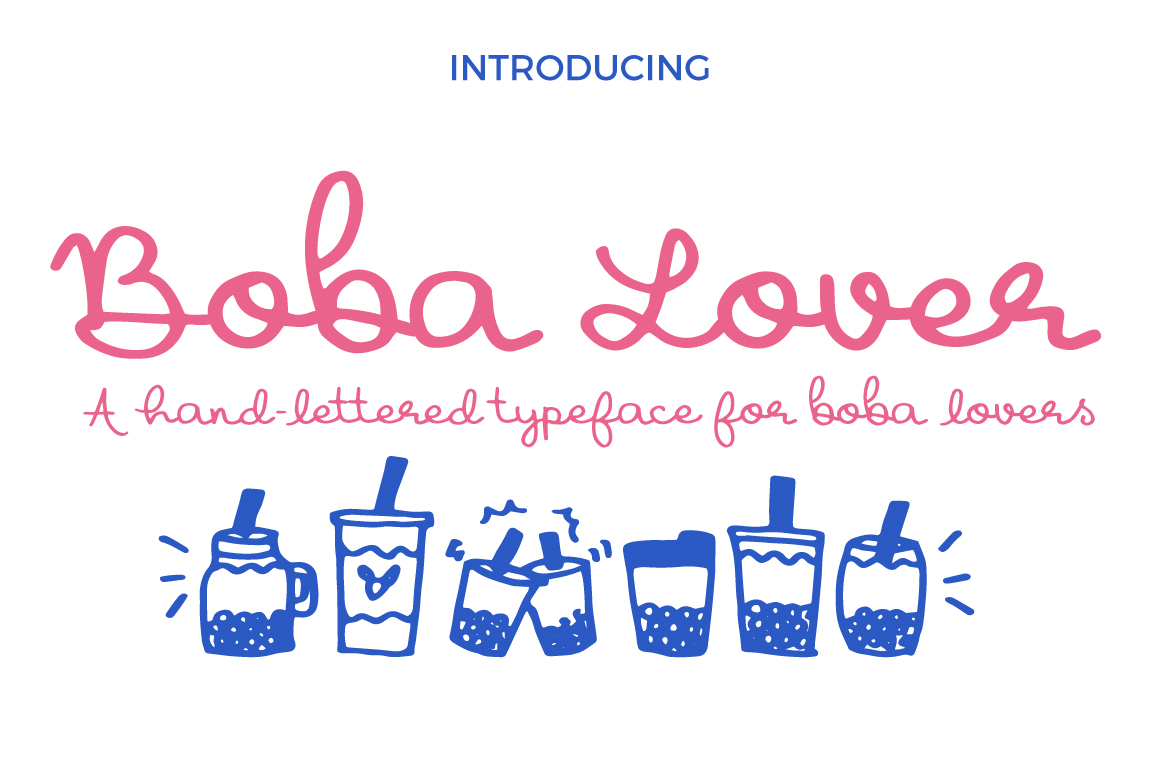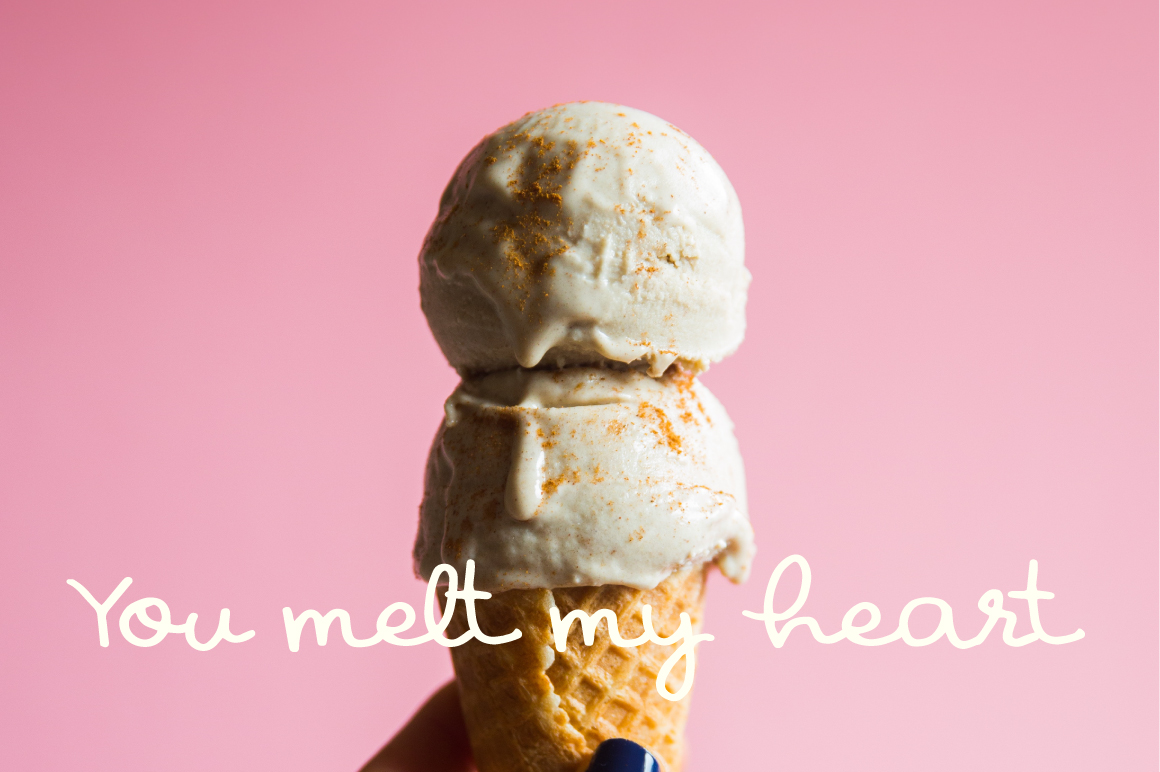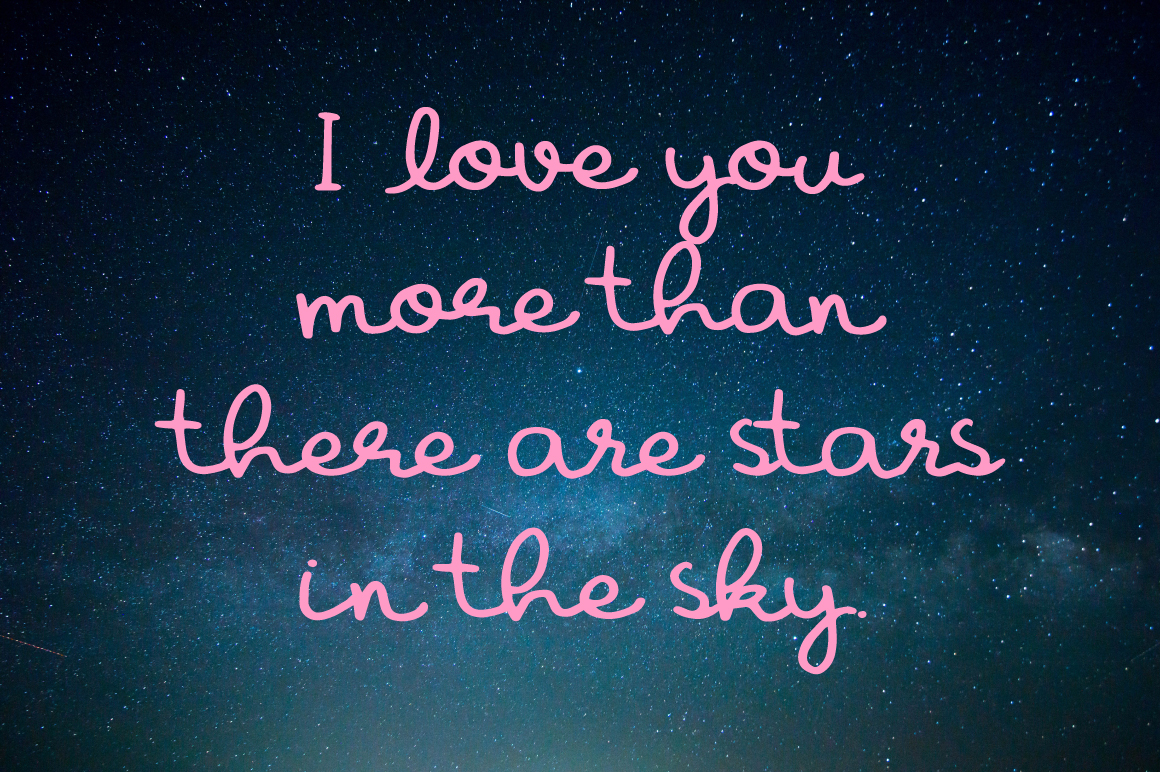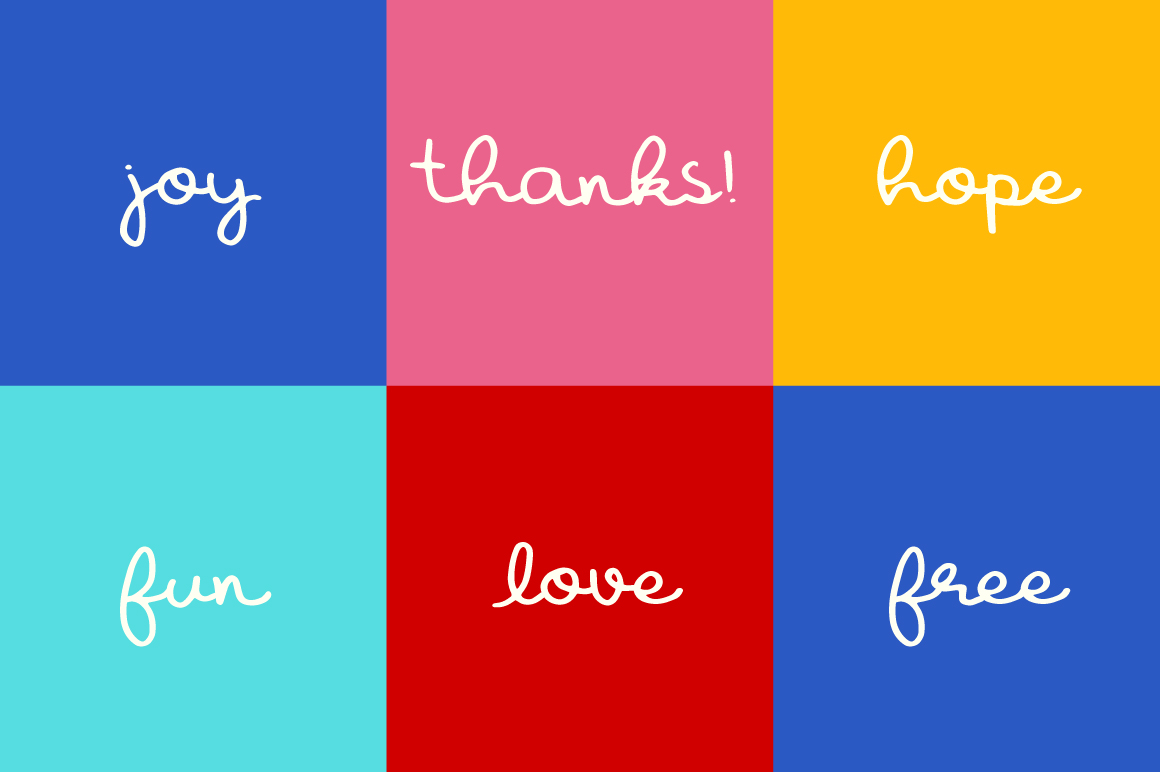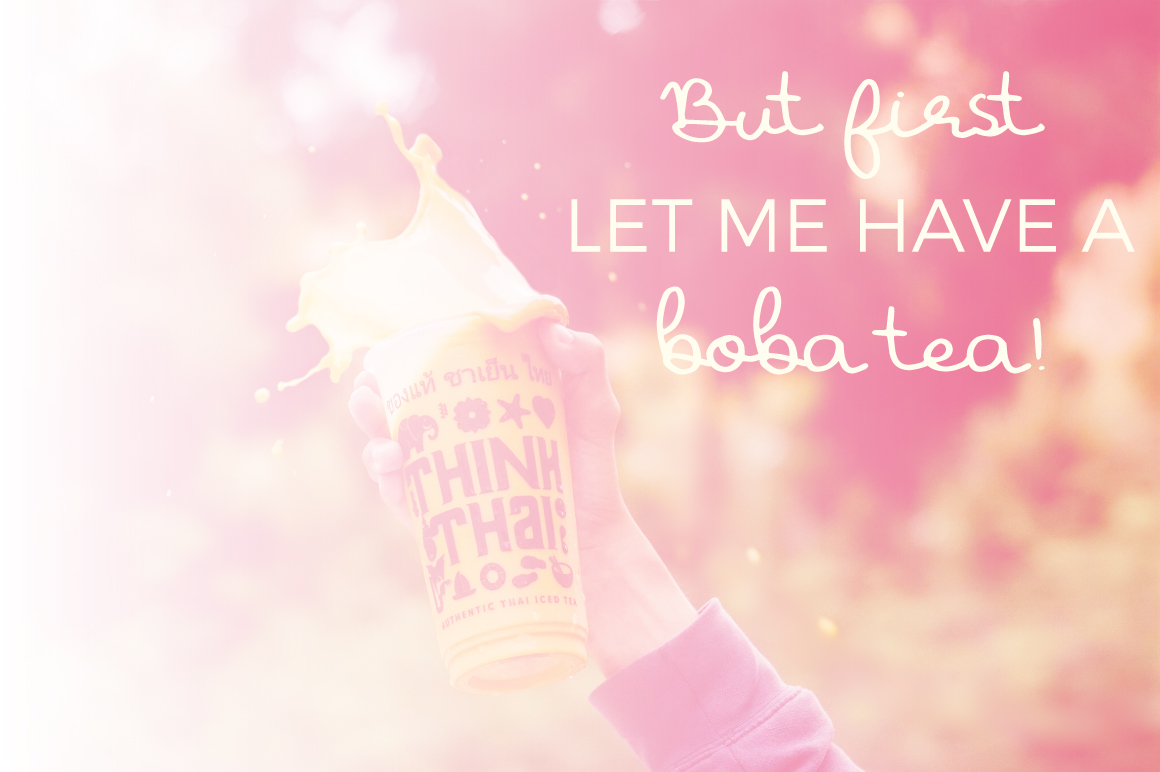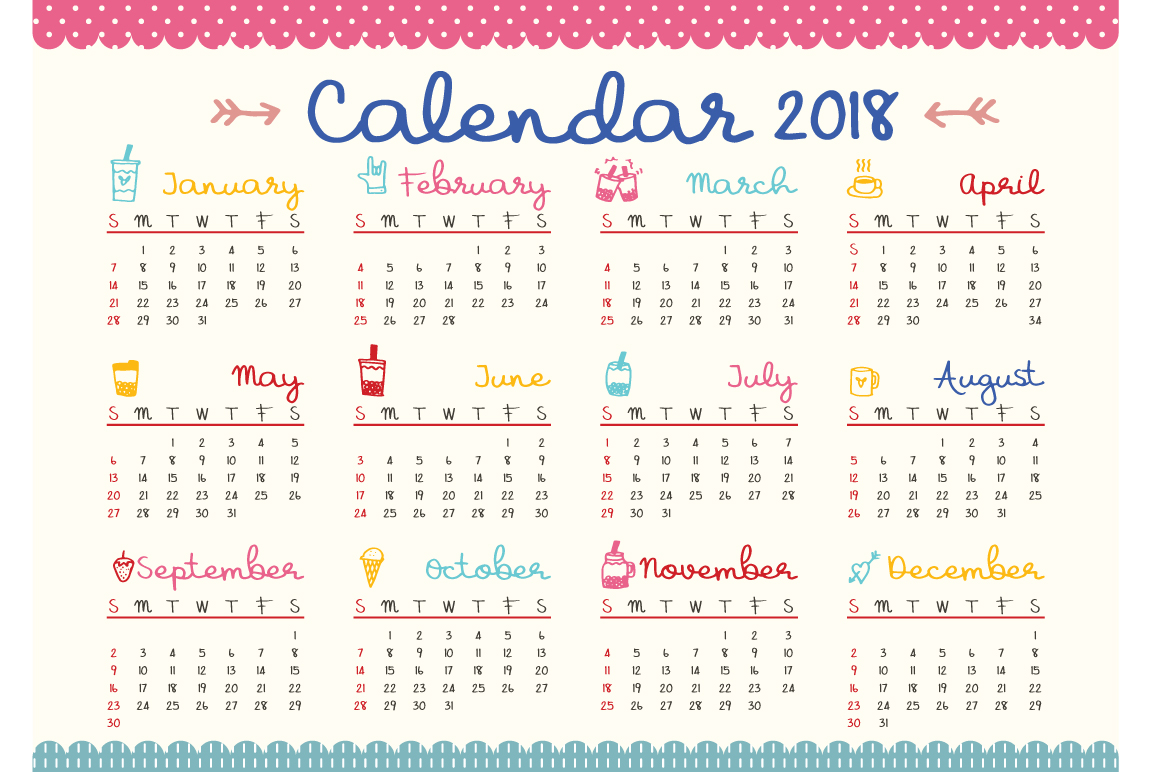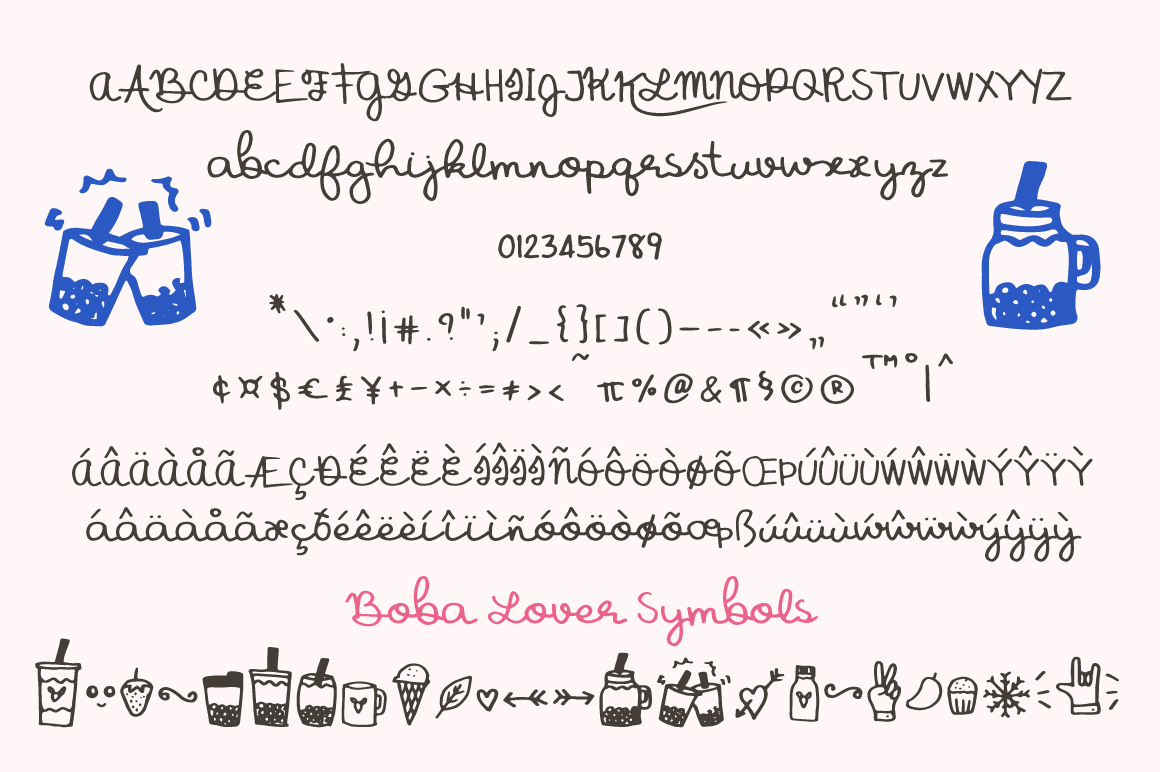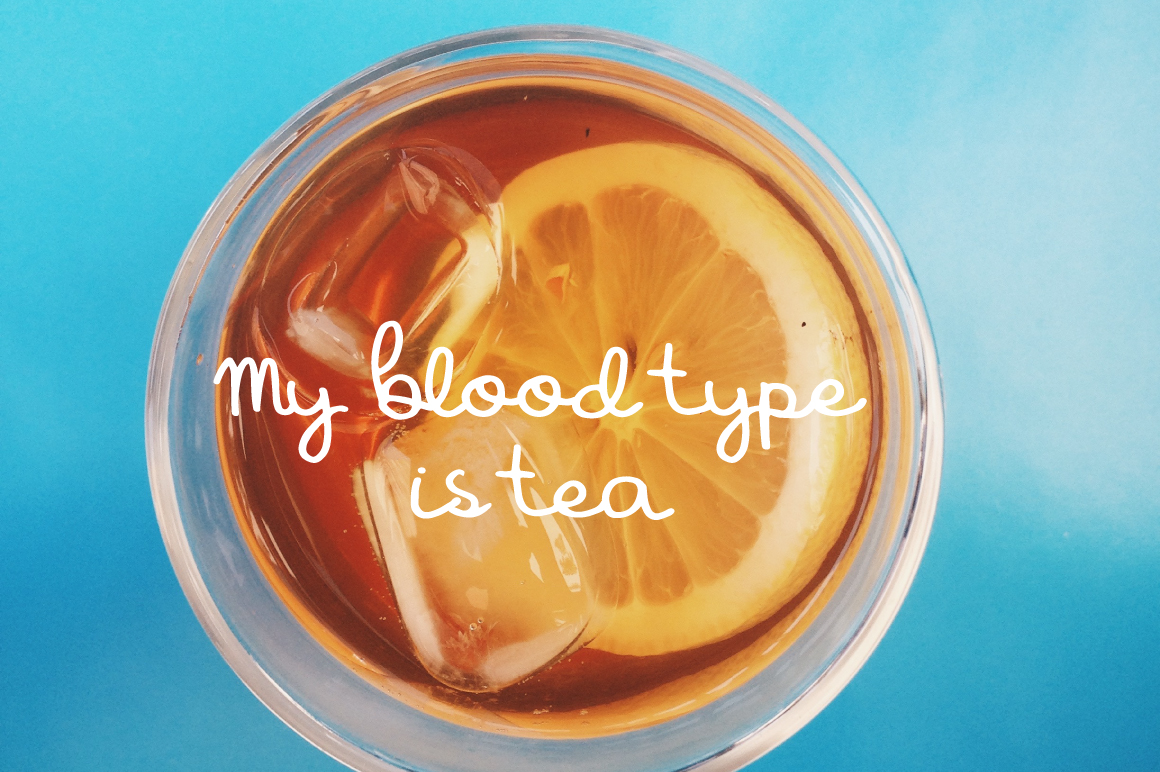
Boba Lover Font
About Boba Lover Font
Boba Lover is a handwriting script typeface designed to give off a cute and relaxed vibe. Meant to evoke the sense of joy one has when drinking boba tea, this font is perfect for adding a touch of fun and sunniness to your designs.